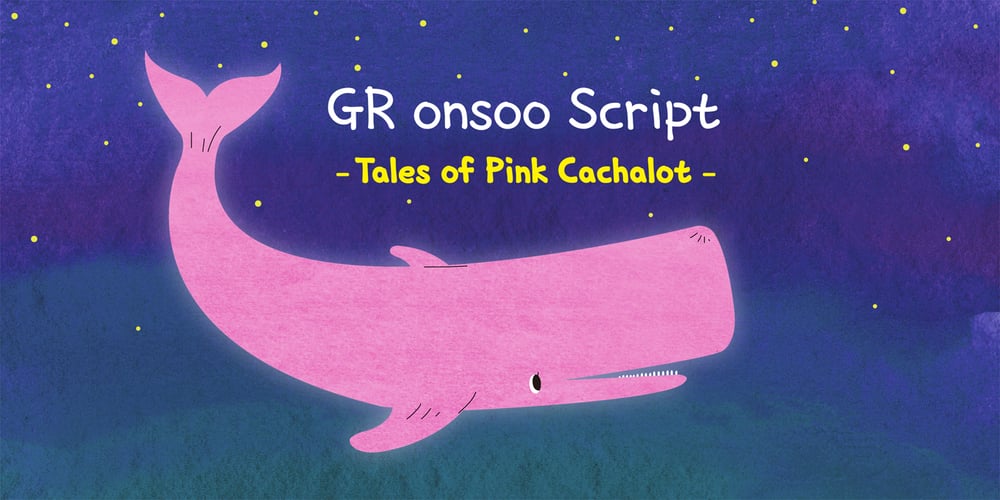
GR onsoo Script
GR onsoo Script font
GR onsoo Script Font Family was designed by onsoo and published by GORAE Font. GR onsoo Script contains 3 styles and family package options. The typeface of GR onsoo Script is the handwriting of artist ‘onsoo’. This font is designed for use in the text or title of fairy tale books.